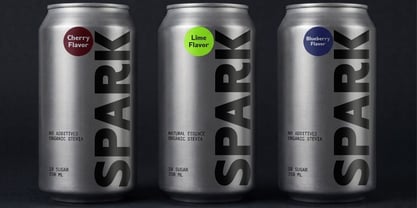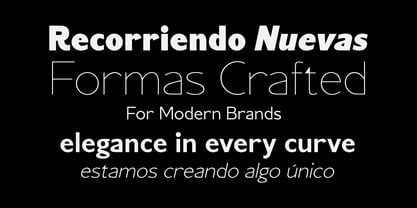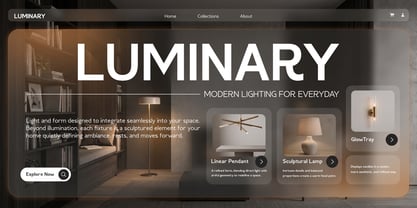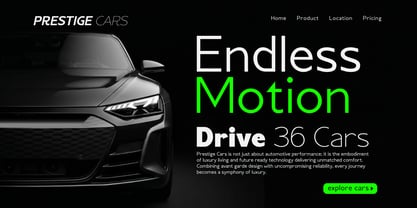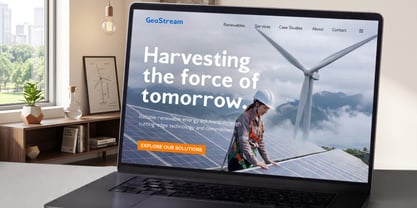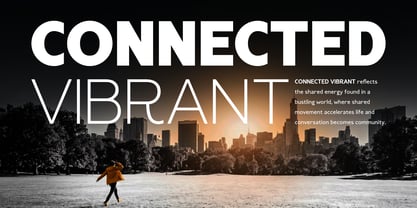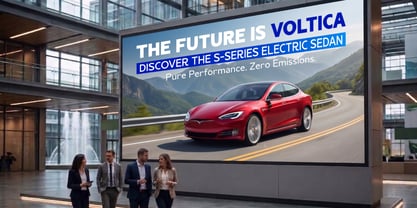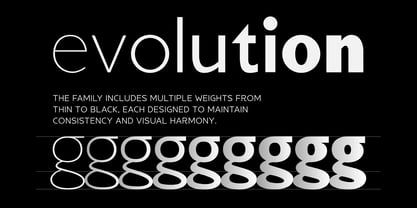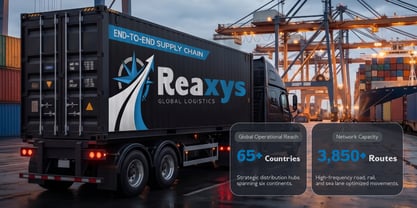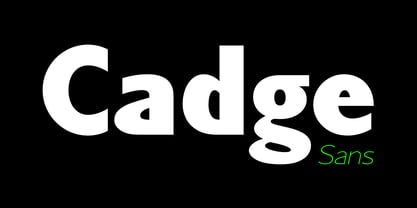
Cadge Sans
Cadge Sans is a sans-serif font family designed to make your designs stand out with a bold modern character. Featuring 9 versatile weights, including italics, Cadge Sans offers endless creative possibilities for building striking, clean, and contemporary designs. It is perfect for projects that need a strong yet relaxed visual style, making it a must-have for designers.
Key Features:
Bold & Distinctive: Strong letterforms and unique shapes help your text stand out and deliver a powerful visual impact.
Casual & Versatile: Works smoothly across branding, web, print, and digital projects with a clean and approachable feel.
Modern & Futuristic: A fresh contemporary style ideal for tech, and lifestyle branding.
9 Weights + Italics: From thin to black, each style gives full flexibility for different creative expressions.
Multilingual Support: Means Cadge Sans is designed with extended character coverage, allowing it to support multiple languages. It includes a wide range of Latin-based characters and diacritics, making it suitable for international use and global design projects.